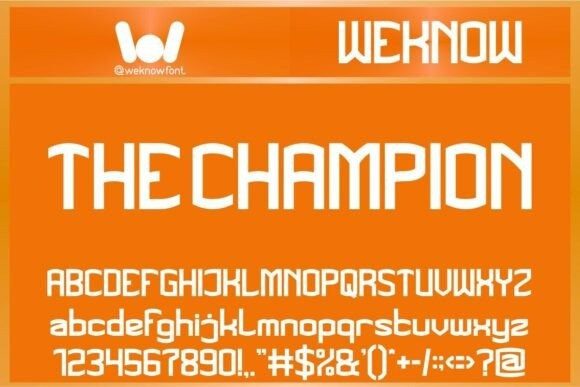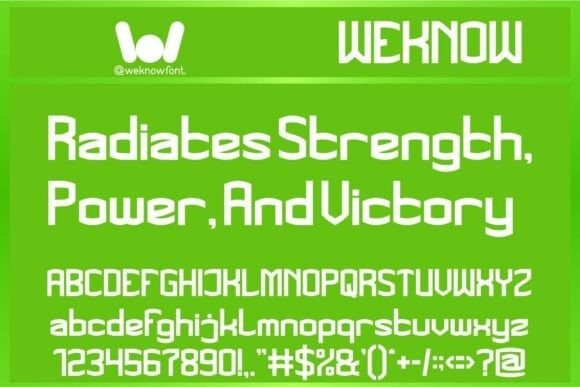
The Champion Font Family
The Champion Font Family, an avant-garde blend of technology and futurism, artfully forged into a geometric typeface. This modern minimalist font exudes a clean, crisp aesthetic. Boundlessly versatile, The Champion is ideal for creating eye-catching logos and logotypes, crafting an effective corporate or brand identity, or adding a sleek touch to apparel designs. Sweep readers off their feet in books, comics, or magazines, or create memorable headlines with this striking font. Make a bold statement in the music, movie, or gaming industry. This font is effortlessly suited for video titling on YouTube, crafting engaging Instagram posts, or creating chic, modern aesthetics on websites. The Champion is a go-to powerhouse font for all your inventive design projects.